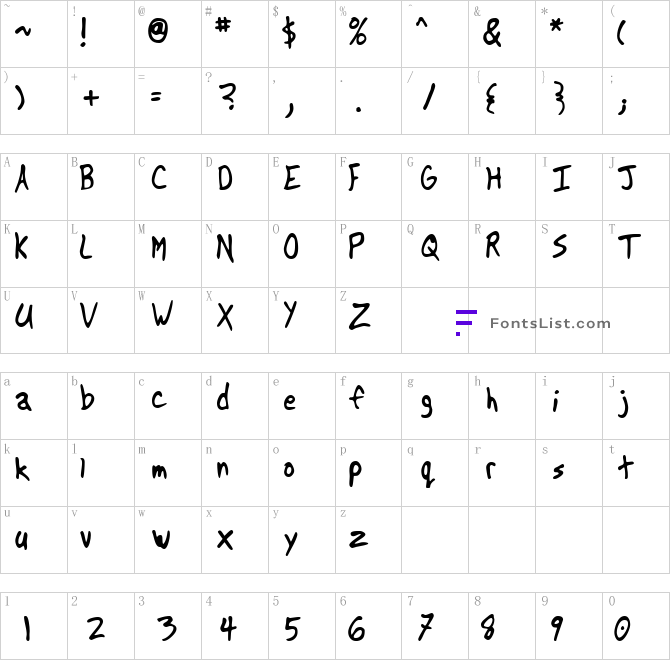
- Font Name:Another
Another.ttf is a very beautiful artistic font, Another.ttf is widely used in the design and printing of various books and pictures,Another.ttf has a strong visual impact,Another.ttf is a commonly used font in newspapers, magazines and books, and is used in posters, e-commerce Poster design, store design, logo design, font design and other fields.Another.